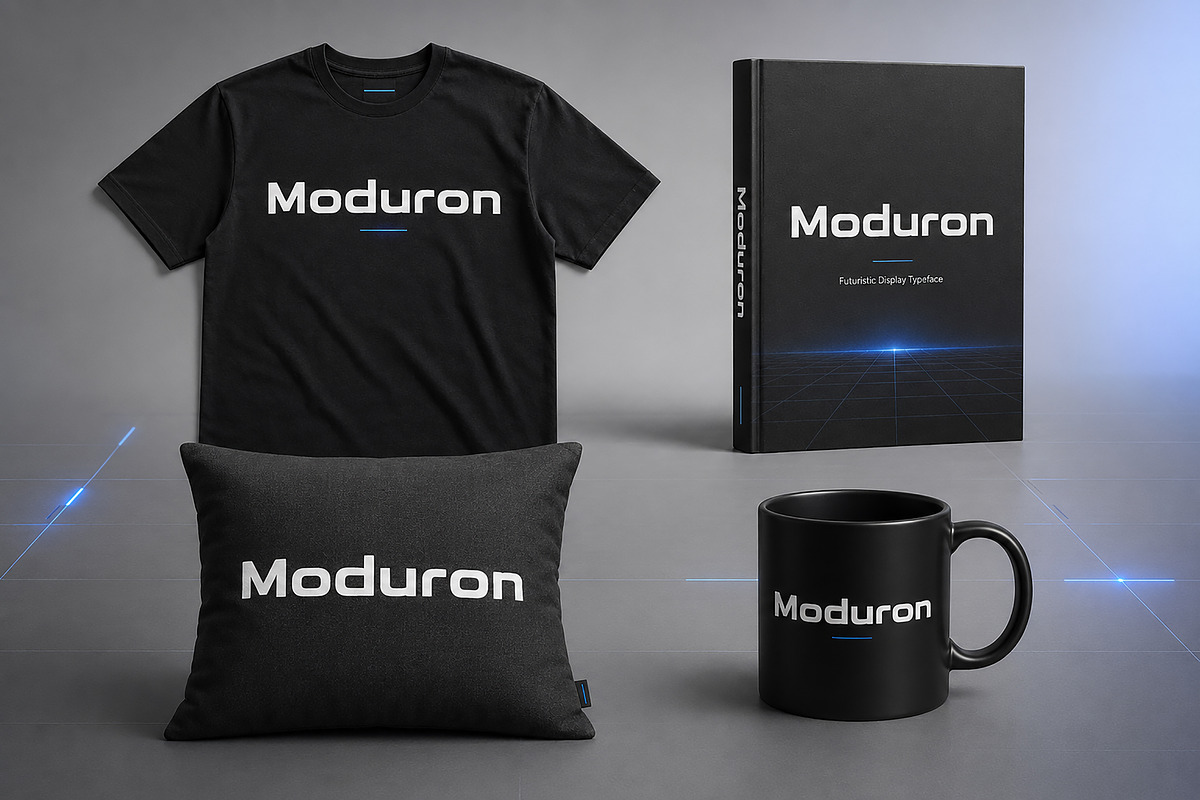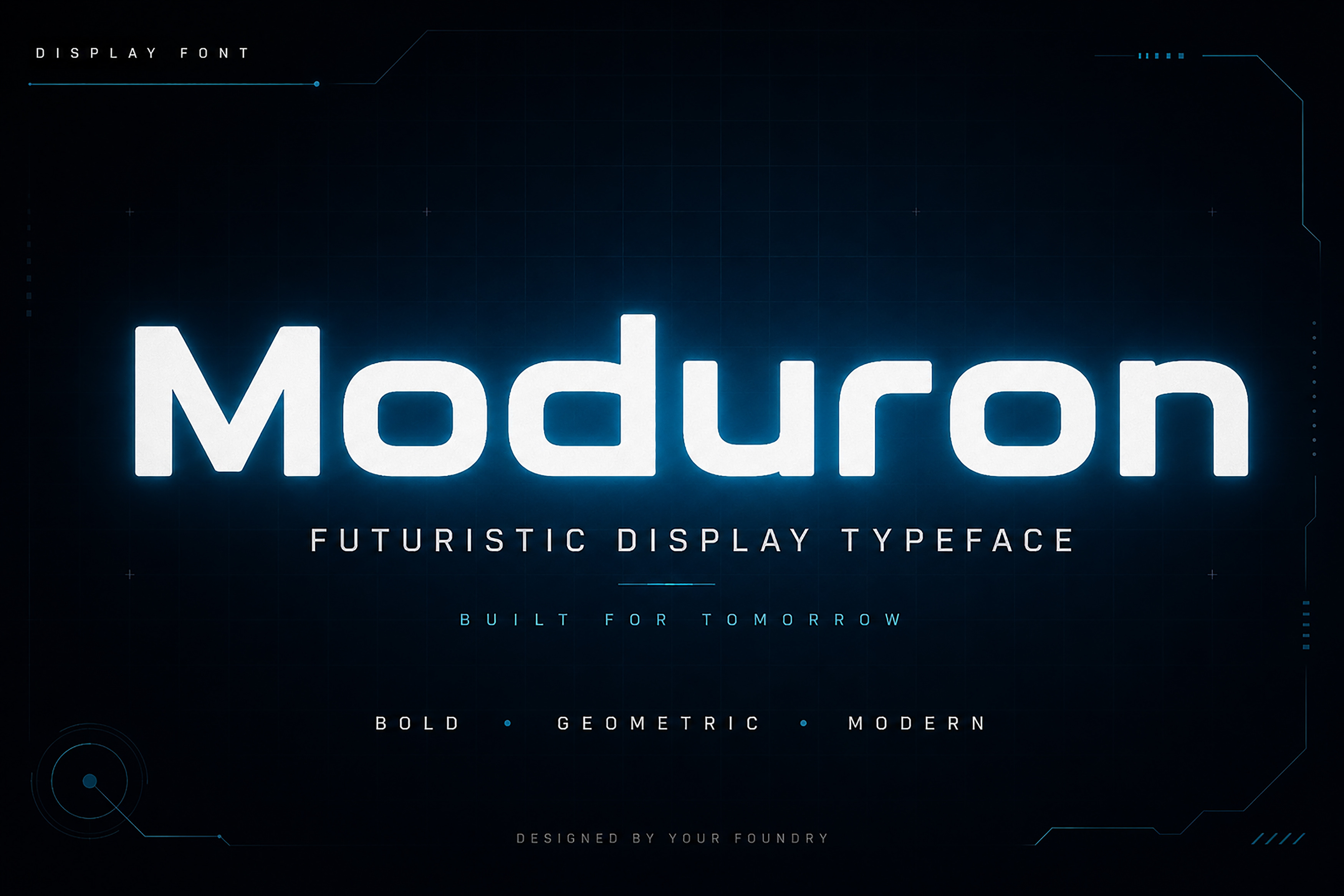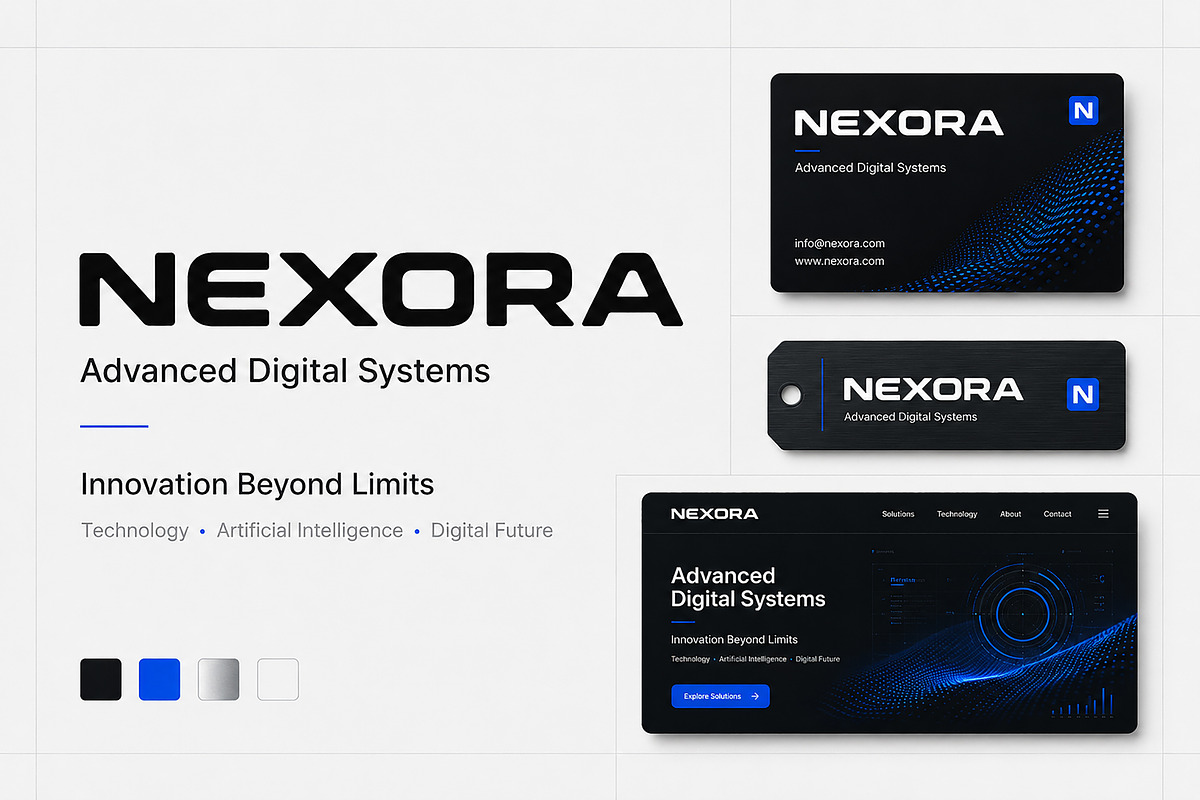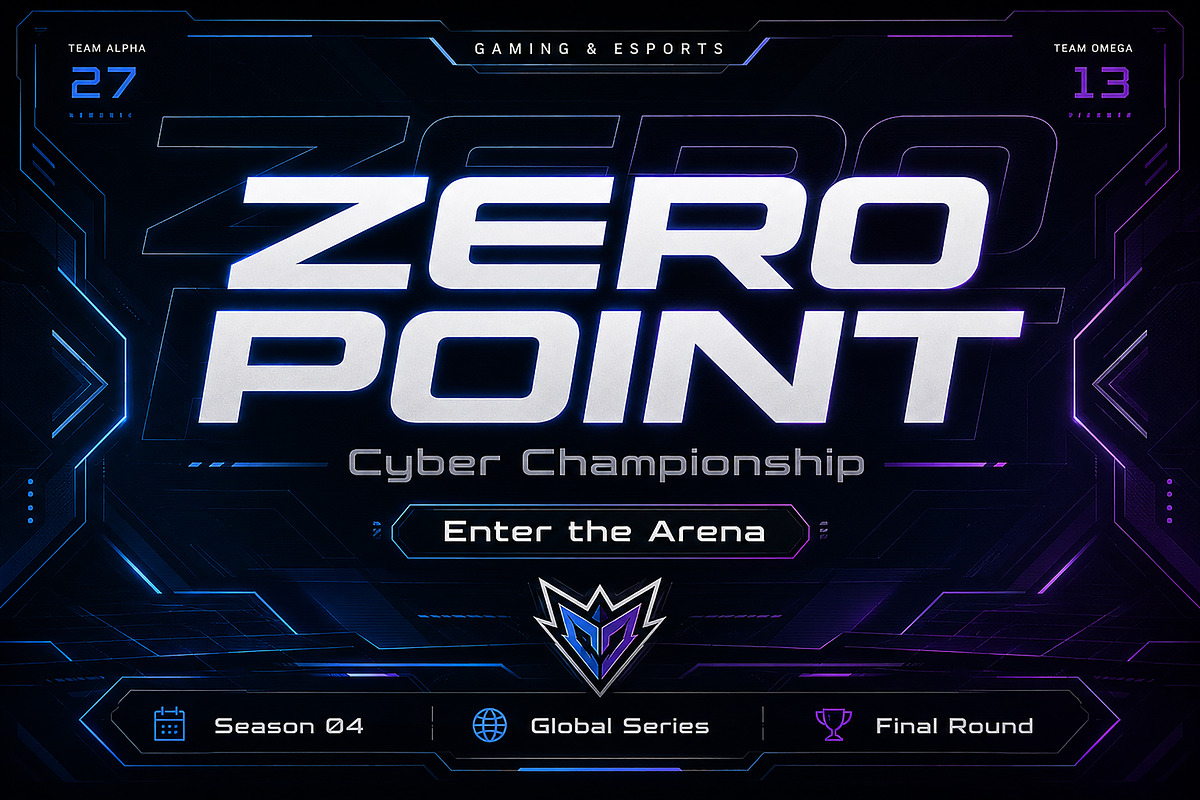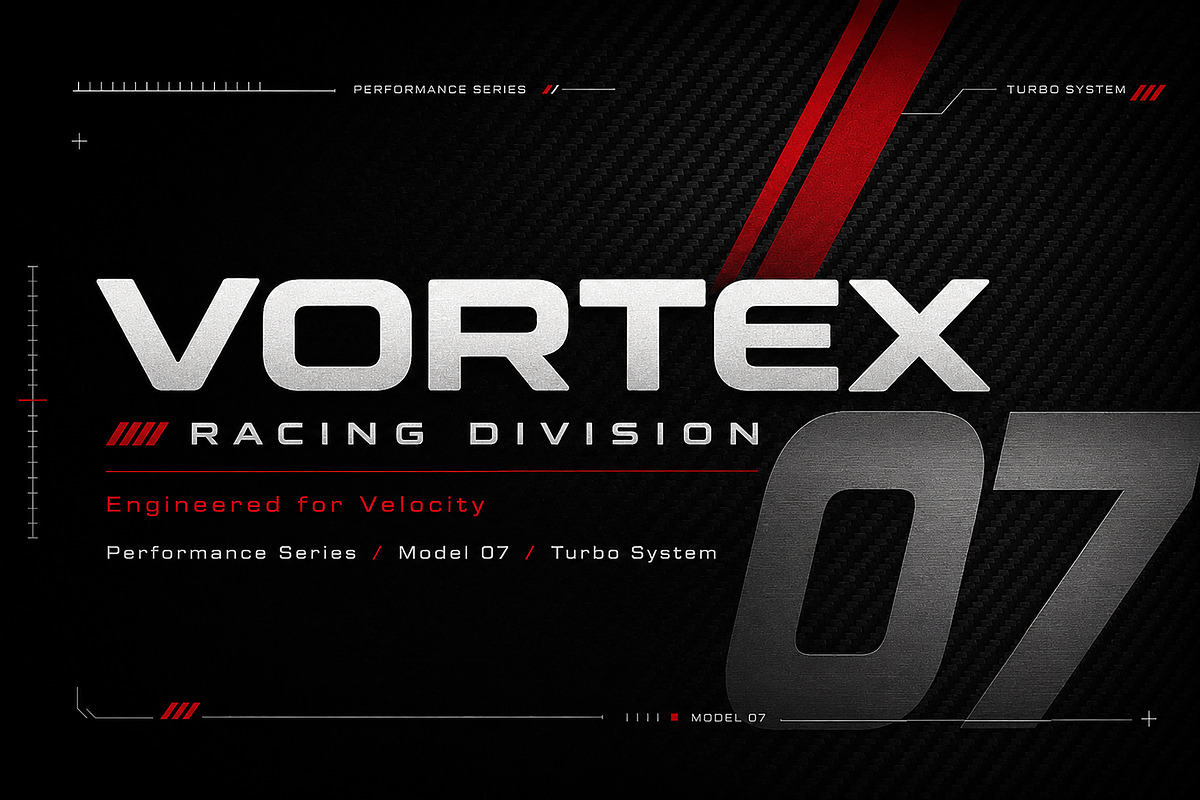
Moduron – Futuristic Display Font
Moduron – Futuristic Geometric Display Font
Meet Moduron, a bold futuristic display font built with strong geometric forms, wide proportions, and a clean technological character. Its powerful letterforms give every design a modern, confident, and forward-looking appearance.
Moduron is an excellent choice for technology branding, automotive graphics, motorsport designs, esports titles, gaming interfaces, posters, logos, apparel, packaging, album covers, and social media graphics. Its distinctive structure works best in headlines, short statements, titles, and attention-grabbing branding.
Whether you are creating a futuristic identity, a high-speed racing poster, or a bold gaming campaign, Moduron helps your message stand out with clarity and impact.
Logo and wordmark design
Technology and AI branding
Automotive and motorsport graphics
Gaming and esports titles
Posters and advertising
Apparel and merchandise
Product packaging
Album and music covers
Website headlines
Bold geometric construction
Distinctive futuristic style
Strong display presence
Clean and modern appearance
Ideal for headlines and branding